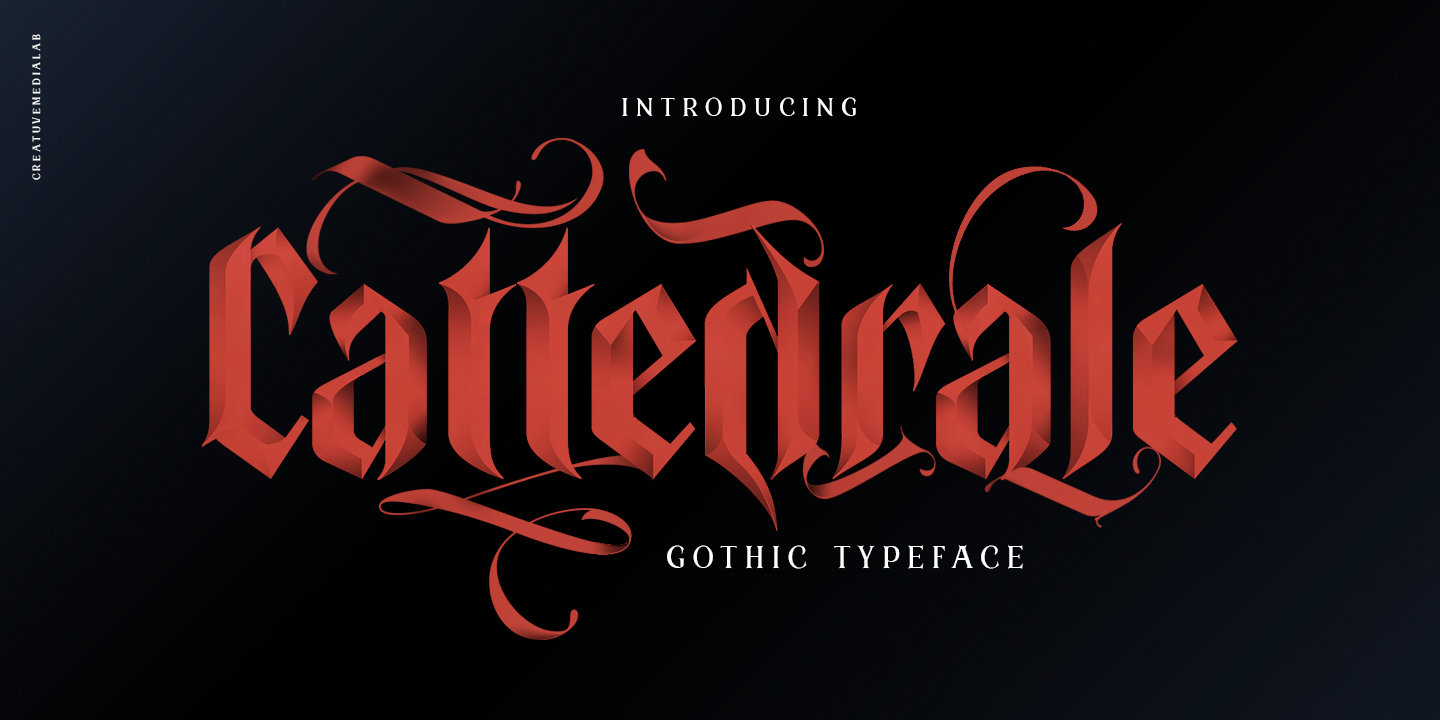
Perfect for religious publications, medieval-themed designs, historical documentaries, luxury wine labels, classical music programs, cathedral event materials, heritage organization branding, and ecclesiastical ceremony invitations.
This font is exciting because it captures the majestic grandeur and spiritual elegance of Gothic cathedral architecture with letterforms that embody centuries of sacred artistic tradition and divine inspiration.
Discover the sacred beauty of medieval craftsmanship with Cattedrale Font Free Download, a magnificent typeface that embodies the spiritual grandeur and architectural majesty of Gothic cathedrals. This exceptional font brings the timeless elegance of ecclesiastical design to contemporary projects, making it perfect for organizations and brands seeking to convey reverence, tradition, and the profound beauty found in sacred artistic expression.
Cattedrale Font features meticulously crafted letterforms inspired by the intricate stonework and illuminated manuscripts of medieval cathedrals. The carefully designed characters combine Gothic architectural elements with modern readability, creating immediate associations with spiritual depth, historical significance, and the masterful craftsmanship that defined Europe's greatest religious monuments and sacred artistic achievements.
The font's remarkable spiritual presence makes it invaluable for religious institutions, cultural organizations, and heritage brands where conveying reverence and historical authenticity is essential for credibility and emotional connection. Whether you're designing materials for religious ceremonies that require appropriate solemnity, creating promotional content for cultural heritage sites, or developing brand identities for organizations celebrating sacred traditions, Cattedrale Font delivers the authentic ecclesiastical aesthetic that resonates with audiences seeking meaningful spiritual and cultural experiences.
Religious organizations and cultural institutions worldwide choose the Cattedrale Font Free Download for projects requiring sacred dignity and historical authenticity. The font works brilliantly for museums showcasing medieval art collections, classical music organizations promoting sacred compositions, religious publishing houses creating devotional materials, and any institution seeking to establish connections with audiences who appreciate sacred artistic traditions and spiritual heritage.
The comprehensive Cattedrale Font family includes variations that maintain the signature Gothic aesthetic while providing design flexibility for diverse religious and cultural applications. Each character demonstrates exceptional attention to medieval design principles, ensuring the sacred character remains powerful and visually compelling across all sizes, from large-scale ceremonial banners to detailed prayer books and religious publications.
This typeface excels in applications where creating atmosphere of reverence and spiritual contemplation is crucial for appropriate communication and audience respect. The majestic letterforms create immediate sacred ambiance that eliminates the need for additional decorative elements, allowing the typography itself to communicate divine inspiration, spiritual depth, and the transcendent beauty of sacred artistic expression.
Cattedrale Font's technical excellence ensures optimal performance across both traditional print applications and modern digital platforms used in religious and cultural communications. The distinctive letterforms maintain their sacred dignity when reproduced on various materials, from ceremonial documents to architectural signage that must convey appropriate reverence in sacred spaces.
The font represents more than typography—it's a bridge between medieval sacred artistry and contemporary spiritual expression, making it invaluable for organizations seeking to honor religious traditions while engaging modern audiences.